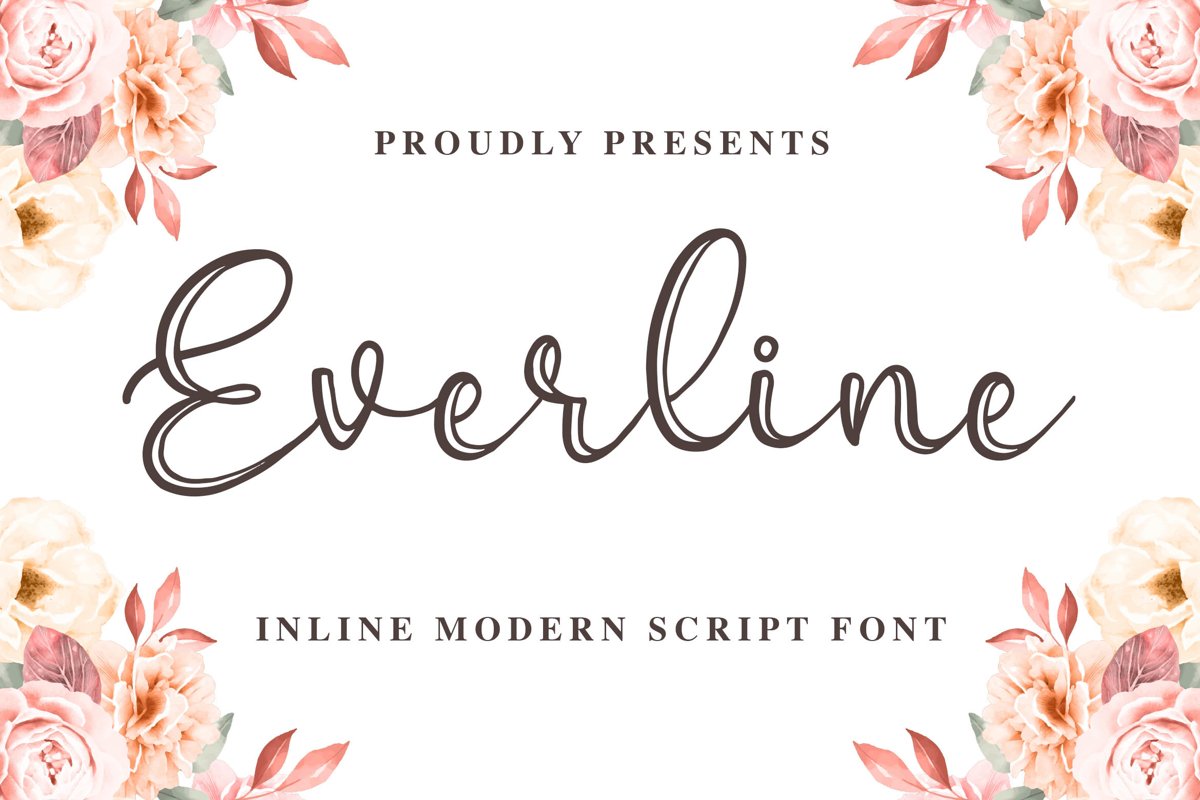
Everline - a Modern Calligraphy
Introducing of our new product the name is Femina a Modern Calligraphy Font. Feelista inspired by modern calligraphy style this font is a fun theme very good for display, wedding, valentine theme, logotype and etc